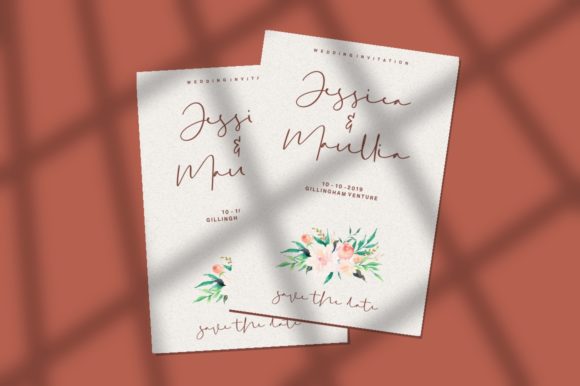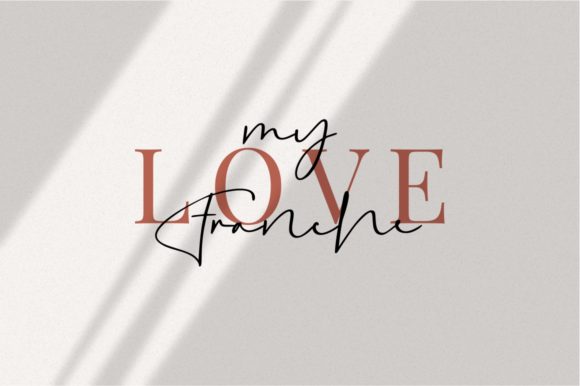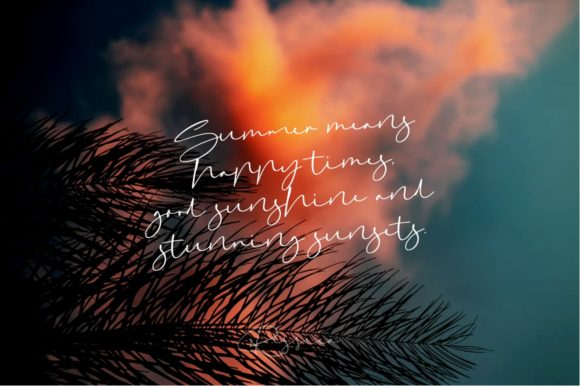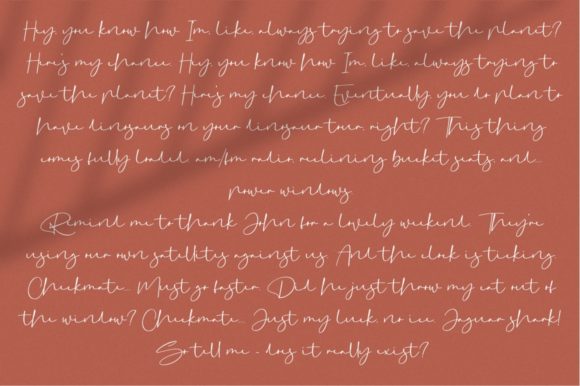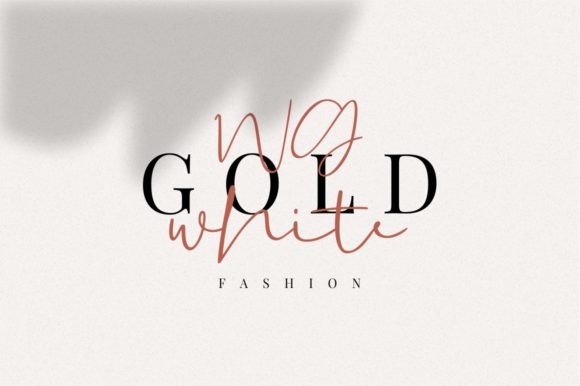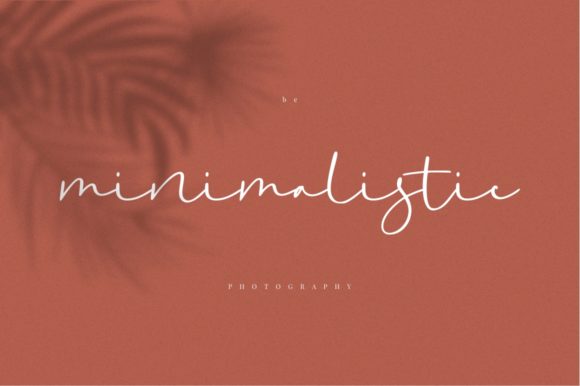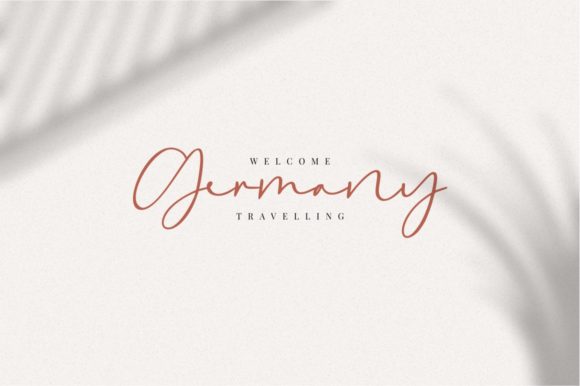
HomeScript FontsRessica Font Script Fonts Ressica Font FacebookXPinterestWhatsApp Ressica Font Poster 2 Ressica Font Poster 3 Ressica Font Poster 4 Ressica Font Poster 5 Ressica Font Poster 6 Ressica Font Poster 7 Ressica Font Poster 8 About Ressica Font Ressica is a natural & modern handwritten font with elegant charm. Get inspired by its romantic appeal! DOWNLOAD ON CREATIVE FABRICAThis font is sold and delivered by Creative Fabrica. Font Canyon may earn a commission if you buy through this link. People also explored The Ledbetter Font Birthday Script Font Chesova Font Best Camera Font Great in December Font Hotwarthe Font Dolly Font Butterfly Font Abuget Free Script 310 0 TagsRessica Font Previous articleBaristha FontNext articleShaimaa Font LEAVE A REPLY Cancel reply Comment: Please enter your comment! Name:* Please enter your name here Email:* You have entered an incorrect email address! Please enter your email address here Website: Save my name, email, and website in this browser for the next time I comment. Personal Use Free Spaghetti Personal Use Free Read more about this font Mail Ray Stuff Personal Use Free Read more about this font Saolice Personal Use Free Read more about this font Po Beef Personal Use Free Read more about this font BLOG Exploring Font Trends Shaping Communication in the Digital Era Fonts, like all design elements, are subject to trends. They play a crucial role in communicating a brand's personality,... How to Install and Use Fonts on Windows, macOS, and Web Projects To increase your work productivity, choose the most readable fonts. The 10 Best Handwriting Fonts to Add Personality to Your Designs